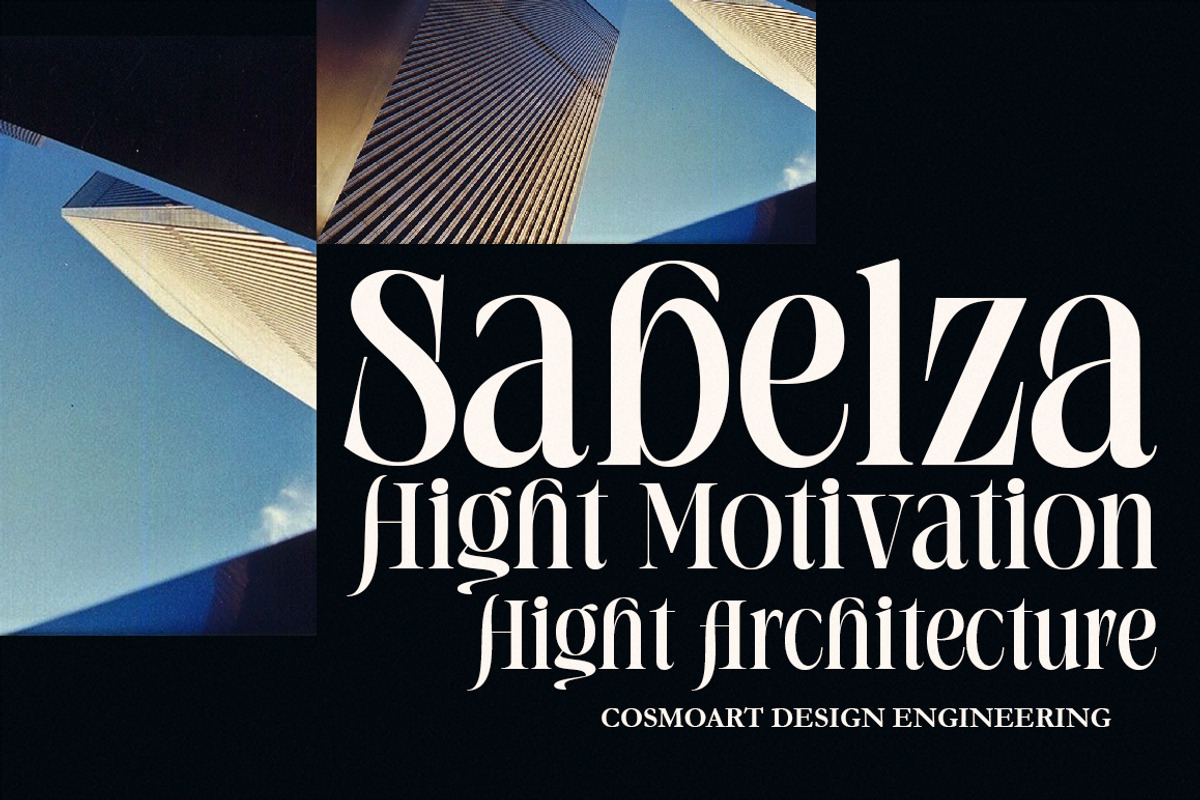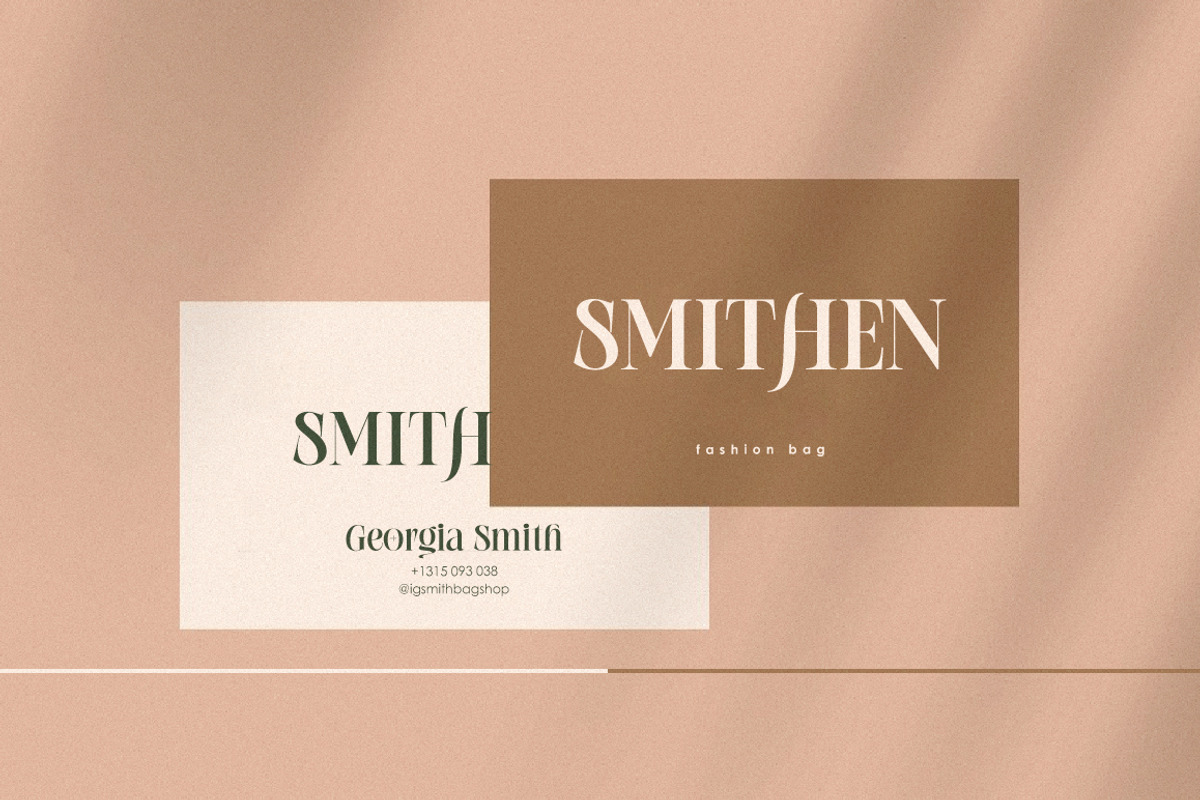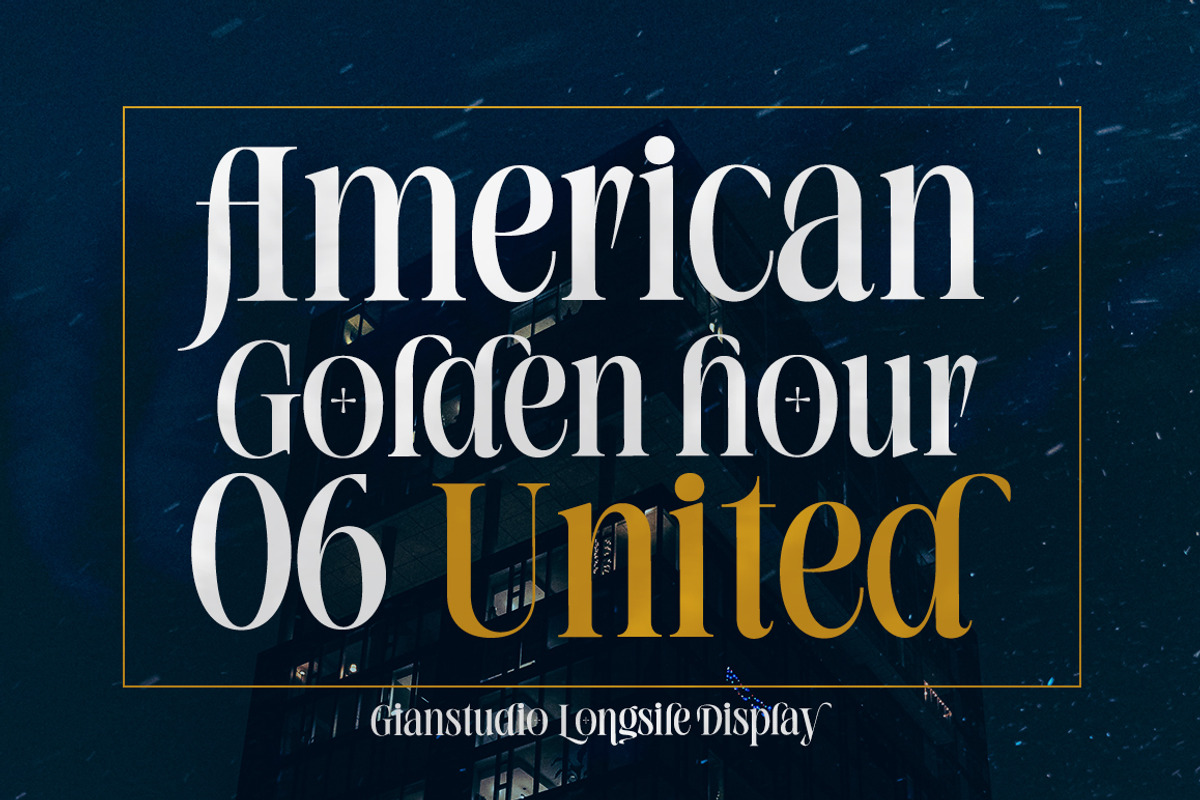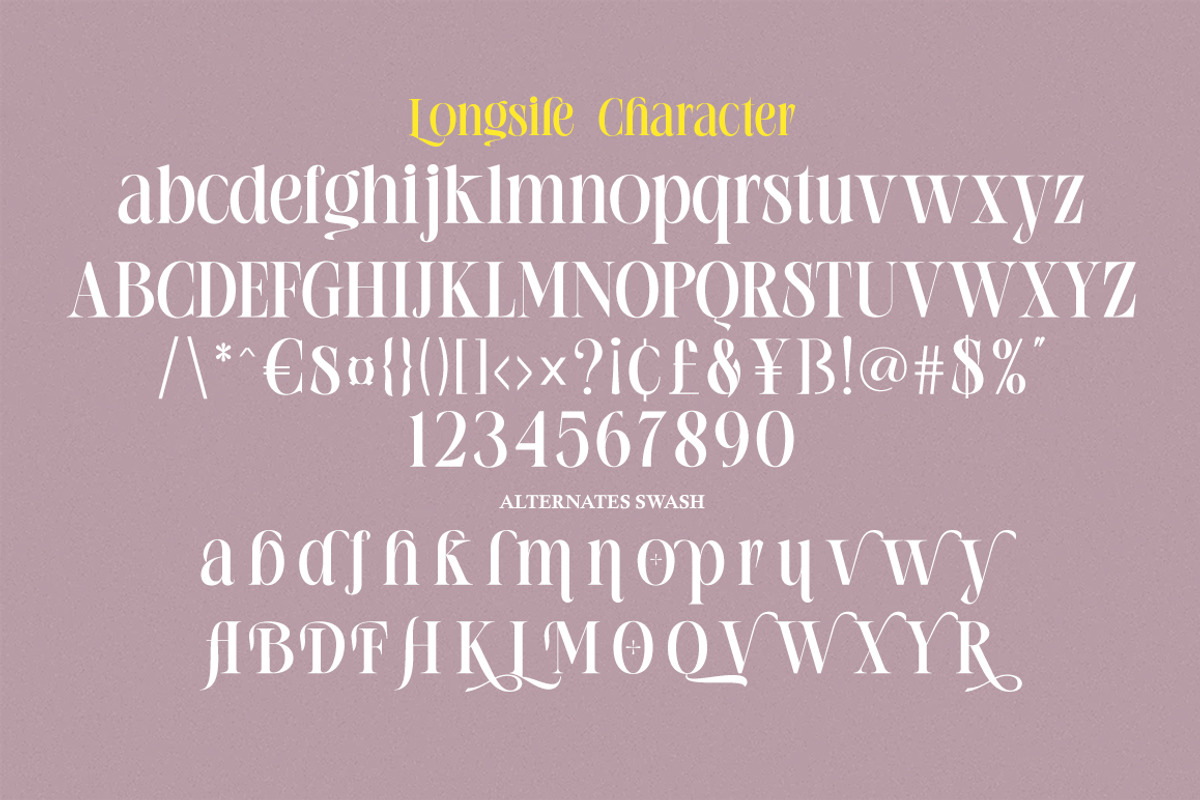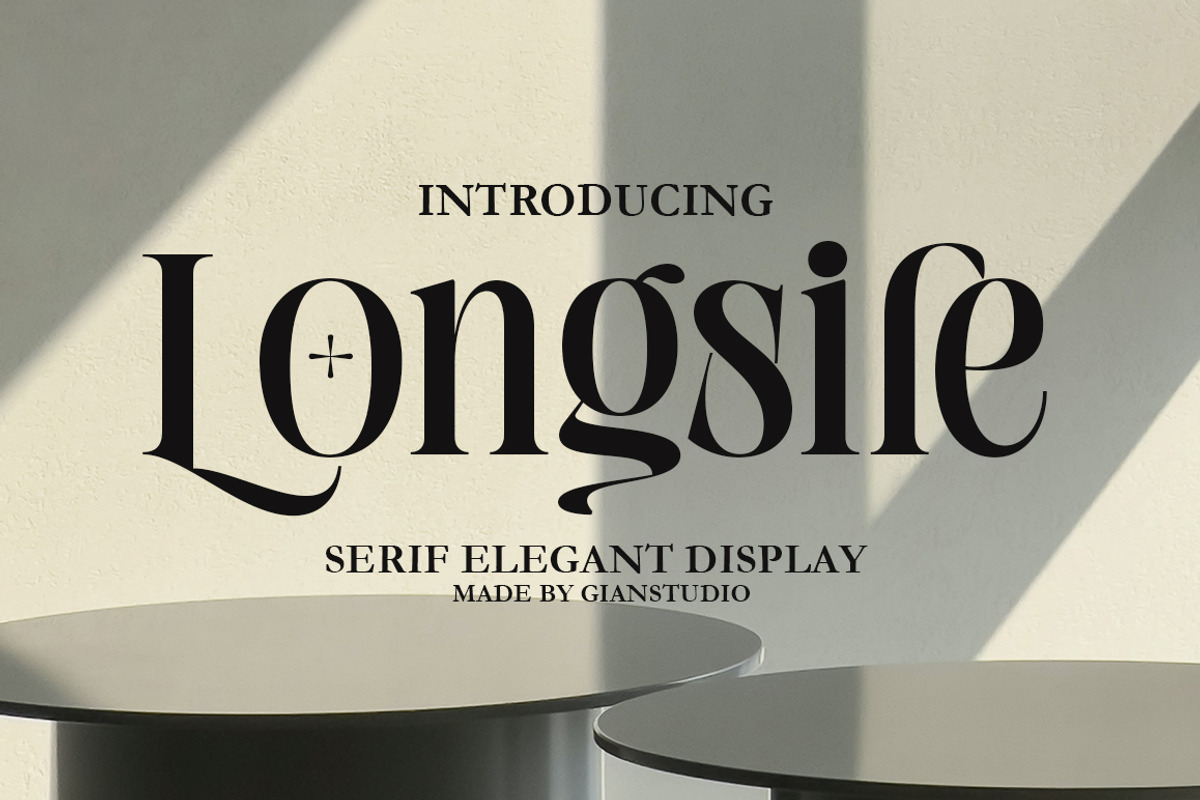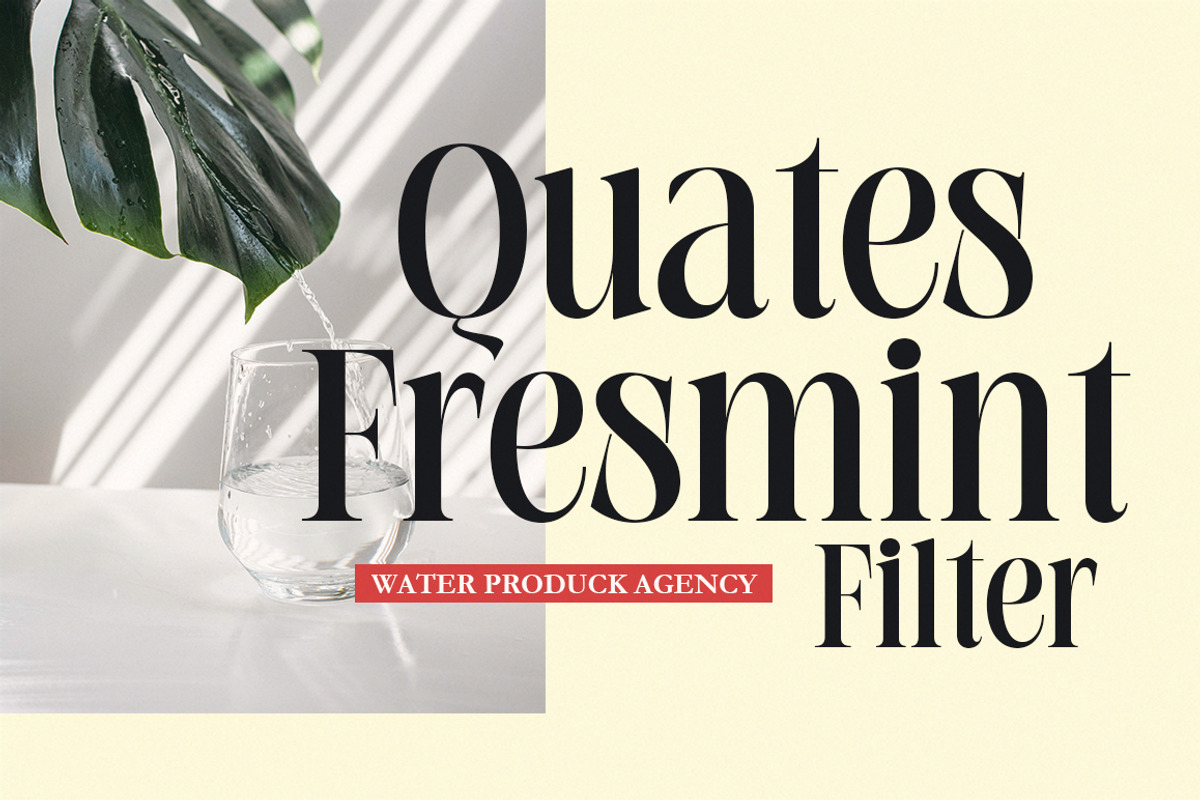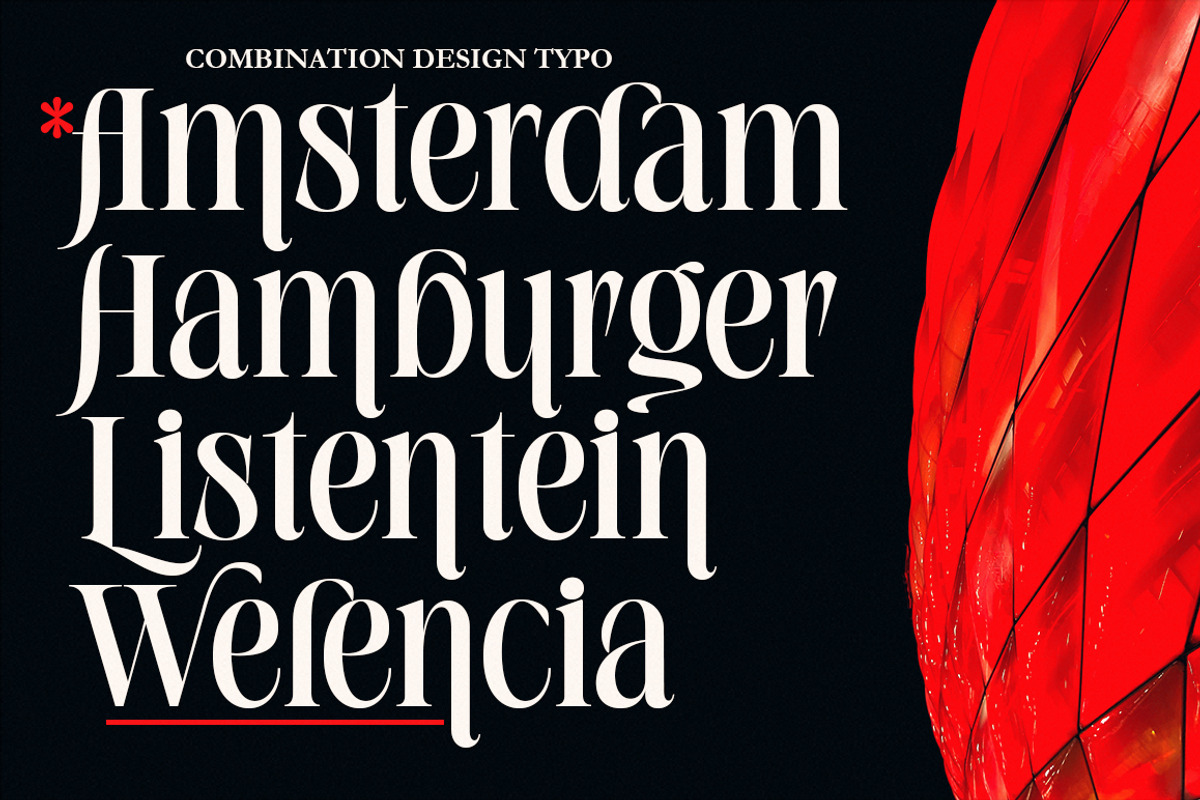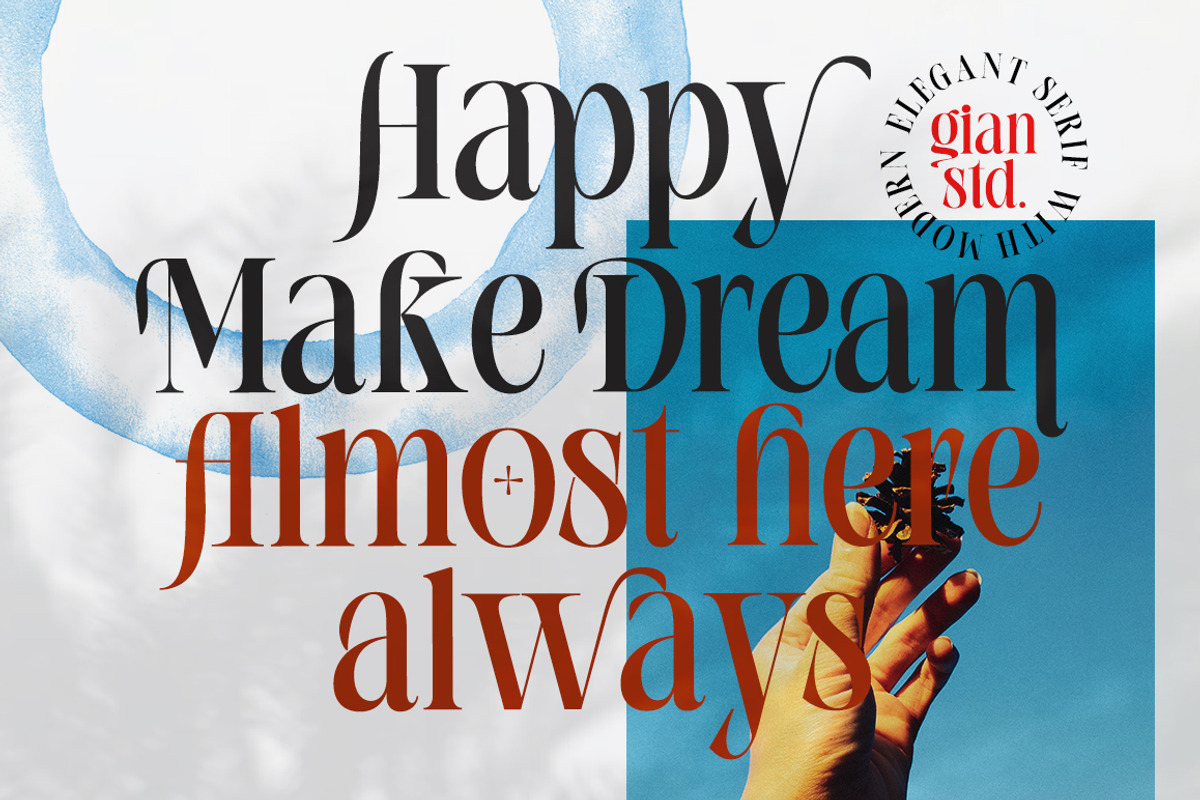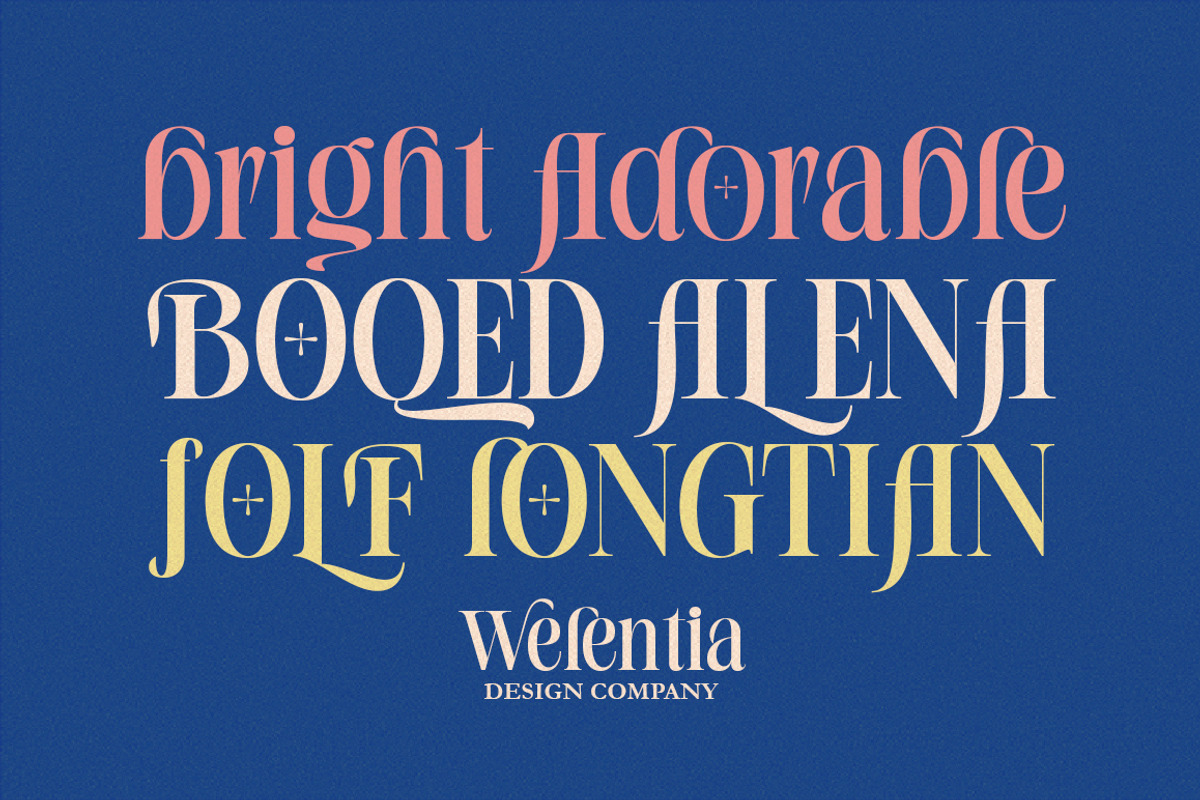
Longsile
Hello friends... We are proud to present our new font. New natural Longsile Display with a classy and Modern style makes this font look elegant, natural, stylish.
Longsile would be perfect for invitations, logos & branding, photography, advertising, watermarks, social media posts, product packaging, product designs, labels, wedding designs, stationery, special events or anything else needed to create a theme.
Longsile was built with OpenType features and includes initial and ending stylistics, alternative characters for most lowercase letters, numbers, punctuation, alternatives, ligatures and also supports other languages.